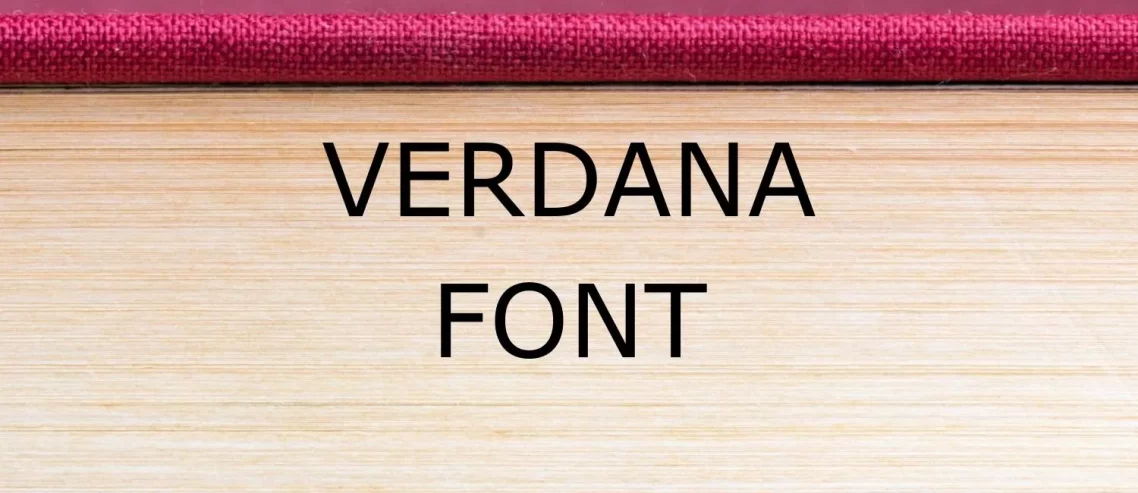
Verdana is a humanist sans-serif font created by the esteemed designer Matthew Carter. It was released by Microsoft Foundry in 1996.
This font is very famous because of its texture that is easily readable by the users. This font is the trademark of Microsoft Corporation.
Verdana Font Info
NameVerdana Font
DesignerMatthew Carter
FoundryMicrosoft
StyleSans-serif